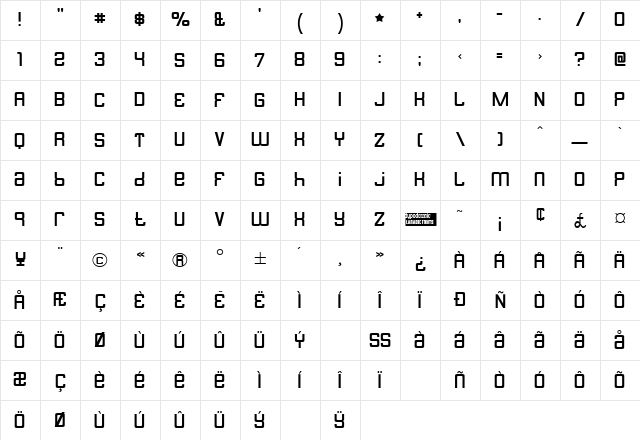
Butterbelly Regular Free Font
Butterbelly Regular
Butterbelly Family
Design Context for Butterbelly
Butterbelly is a composed and adaptable typeface that performs quietly and consistently across a wide range of design contexts.